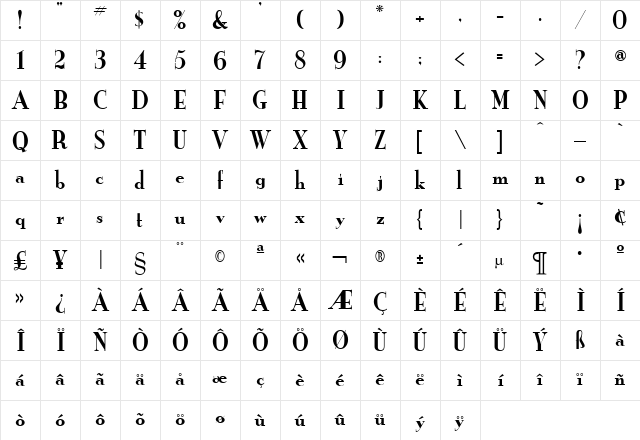
NewOrder Regular Free Font
NewOrder Regular
NewOrder Family
Design Context for NewOrder
NewOrder is a composed and adaptable typeface that performs quietly and consistently across a wide range of design contexts.